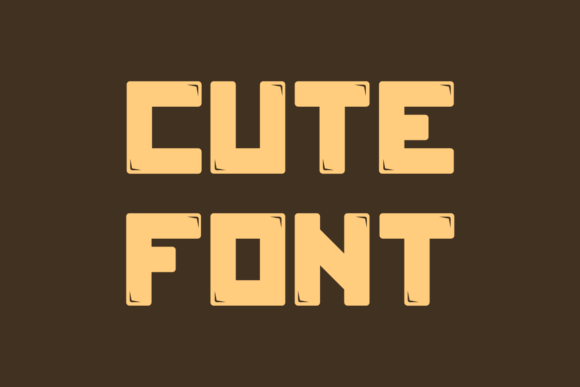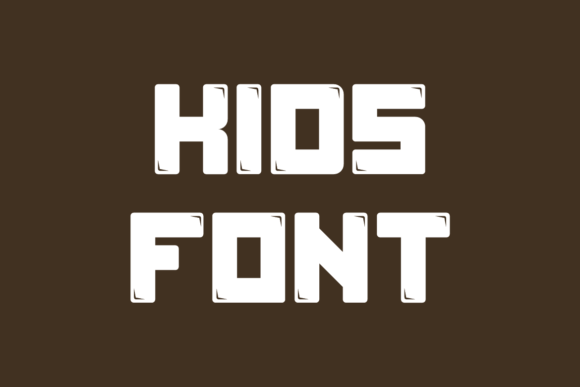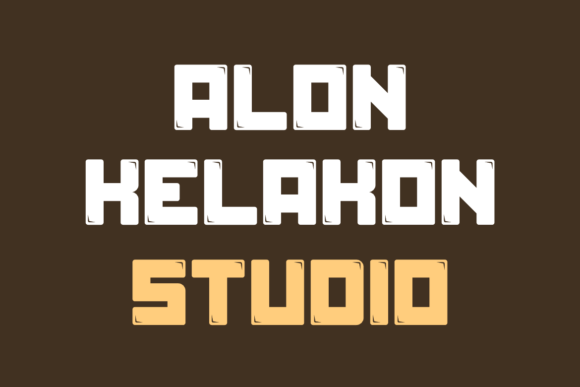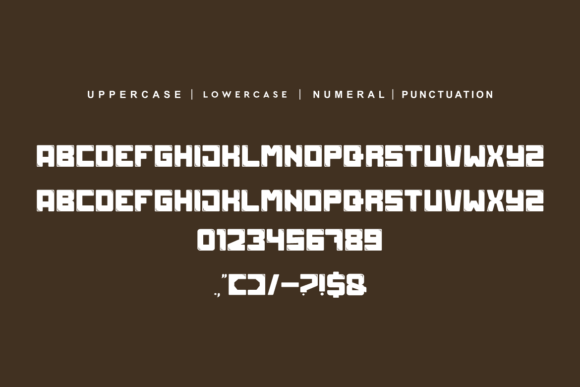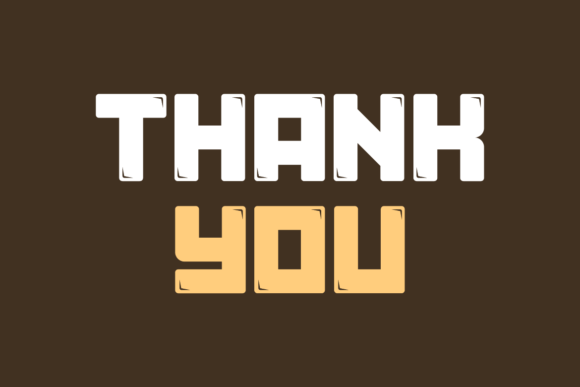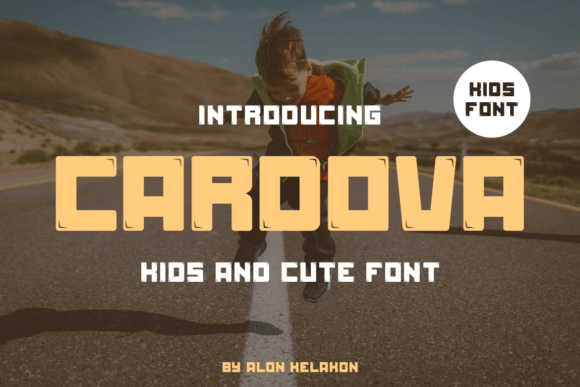
Introducing Cardova Font: The Ultimate Bold and Trendy Display Font
Are you a designer, crafter, or digital artist looking for a font that can add a touch of trendiness to your projects? Look no further than Cardova Font! This bold, all-caps display font is perfect for a variety of applications, from crafting and digital designing to presentations and greeting card making.
What Makes Cardova Font So Special?
Cardova Font is a unique and stylish font that is sure to make your projects stand out. Its bold and all-caps design makes it perfect for headlines, titles, and other applications where you want to grab attention. The font features a perfect amount of trendiness, making it ideal for modern designs and projects that require a fresh look.
Key Features of Cardova Font
• Bold and All-Caps Design: Cardova Font features a bold and all-caps design that is perfect for making a statement.
• Trendy and Modern: The font has a trendy and modern look that is sure to add a touch of sophistication to your projects.
• Versatile: Cardova Font is perfect for a variety of applications, including crafting, digital designing, presentations, and greeting card making.
• Easily Readable: Despite its bold design, Cardova Font is easily readable, making it perfect for use in a variety of contexts.
Uses of Cardova Font
Cardova Font is a versatile font that can be used in a variety of contexts. Here are some of the ways you can use Cardova Font:
• Crafting: Cardova Font is perfect for crafting projects, such as scrapbooking, card making, and other paper crafts.
• Digital Designing: The font is ideal for digital designing, including social media graphics, blog posts, and other digital content.
• Presentations: Cardova Font can be used in presentations to add a touch of professionalism and style.
• Greeting Card Making: The font is perfect for creating greeting cards, including birthday cards, holiday cards, and other special occasion cards.
Why Choose Cardova Font?
There are many reasons why you should choose Cardova Font for your next project. Here are a few:
• Unique and Stylish: Cardova Font is a unique and stylish font that is sure to make your projects stand out.
• High-Quality: The font is of high quality, making it perfect for use in professional and personal projects.
• Easily Customizable: Cardova Font is easily customizable, allowing you to adjust the font to fit your needs.
Tips for Using Cardova Font
Here are a few tips for using Cardova Font:
• Use it as a Headline Font: Cardova Font is perfect for use as a headline font, adding a touch of boldness and style to your headlines.
• Pair it with Other Fonts: The font pairs well with other fonts, making it easy to create a unique and stylish look.
• Use it in Combination with Images: Cardova Font looks great in combination with images, making it perfect for use in digital and print designs.
Cardova Font is a bold, all-caps display font that is perfect for designers, crafters, and digital artists. Its trendy and modern design makes it ideal for a variety of applications, from crafting and digital designing to presentations and greeting card making. With its high-quality design, versatility, and affordability, Cardova Font is a great option for anyone looking to add a touch of style and sophistication to their projects.